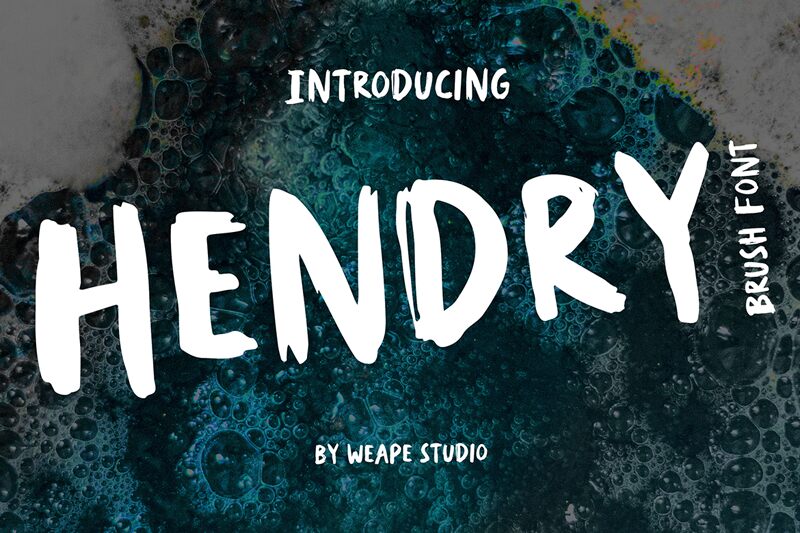
Say hello to Hendry, the brush font designed by Weape Studio. With its natural rough dry brush strokes and quick, sharp hand strokes, Hendry brings an authentic touch to any project.
Whether you're working on promotional material, product packaging, merchandise, or branding projects, this semi-bold font has got you covered. Use the combination of uppercase and lowercase letters to create a personalized feel that will make it seem like you wrote it yourself. Perfect for logos, bands, posters, album covers, book covers, product packaging, handwritten quotes, magazines, and advertising campaigns.
It includes uppercase and lowercase characters, numerals, multilingual support,and a wide range of punctuation options.